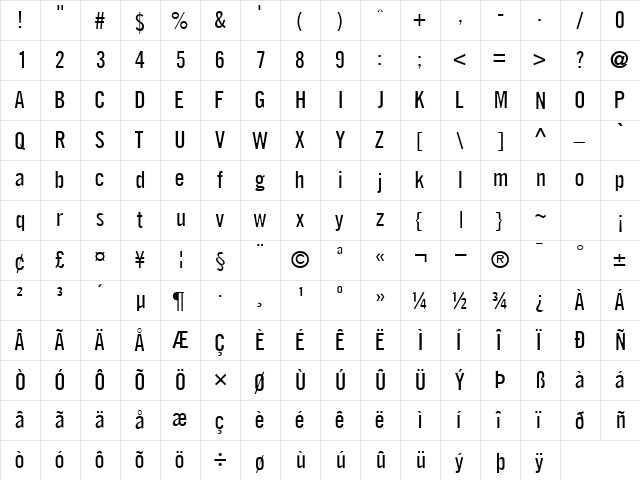
CommerceCondSSK Regular Font Preview
CommerceCondSSK Regular
Design Context for CommerceCondSSK Typeface
CommerceCondSSK is a composed and adaptable typeface that performs quietly and consistently across a wide range of design contexts. Its narrow stance lets it pack a punch even in space-constrained designs.